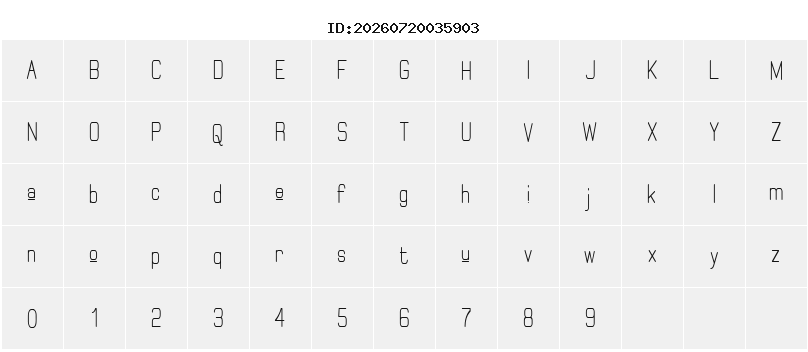
• Font Name: Elgethy Upper Bold Condensed
• Manufacturer: Graham Meade
About Elgethy Upper Bold Condensed.ttf
Elgethy Upper Bold Condensed.ttf is a modern, elegant sans-serif font designed for ultimate readability and visual harmony. Perfect for branding, headlines, web design, and print materials.